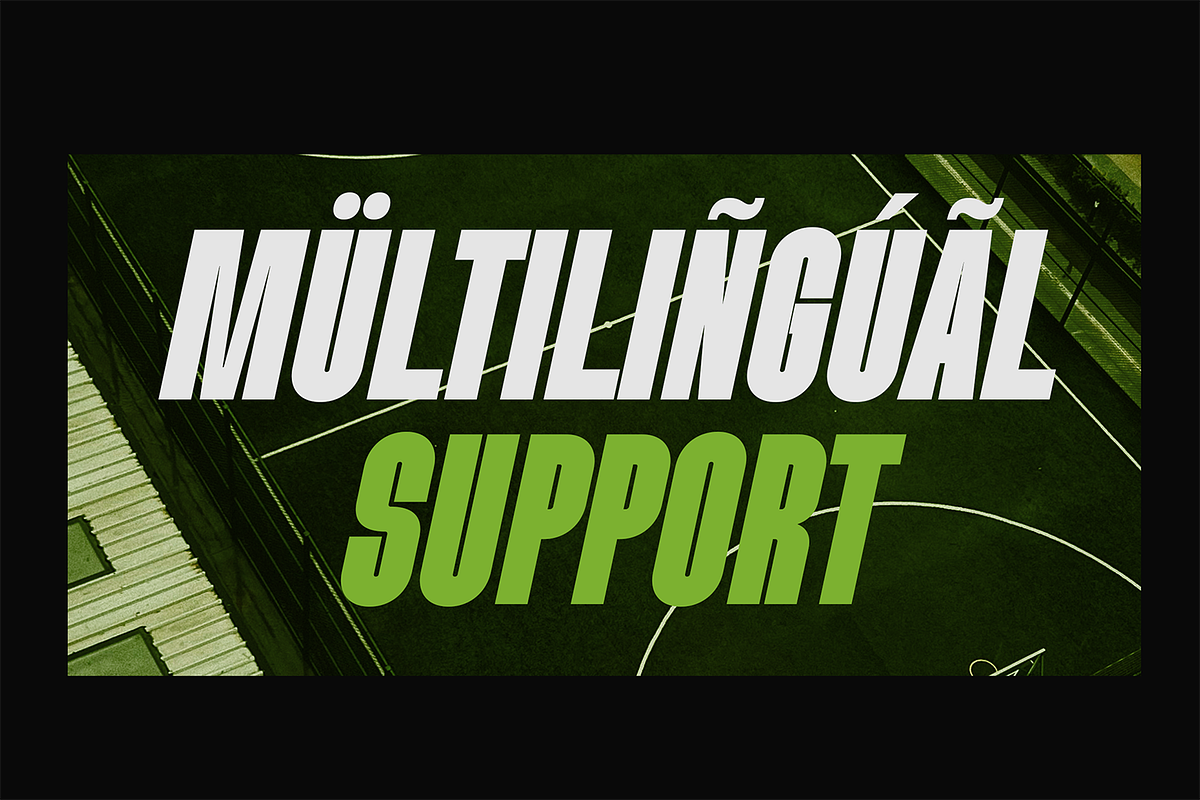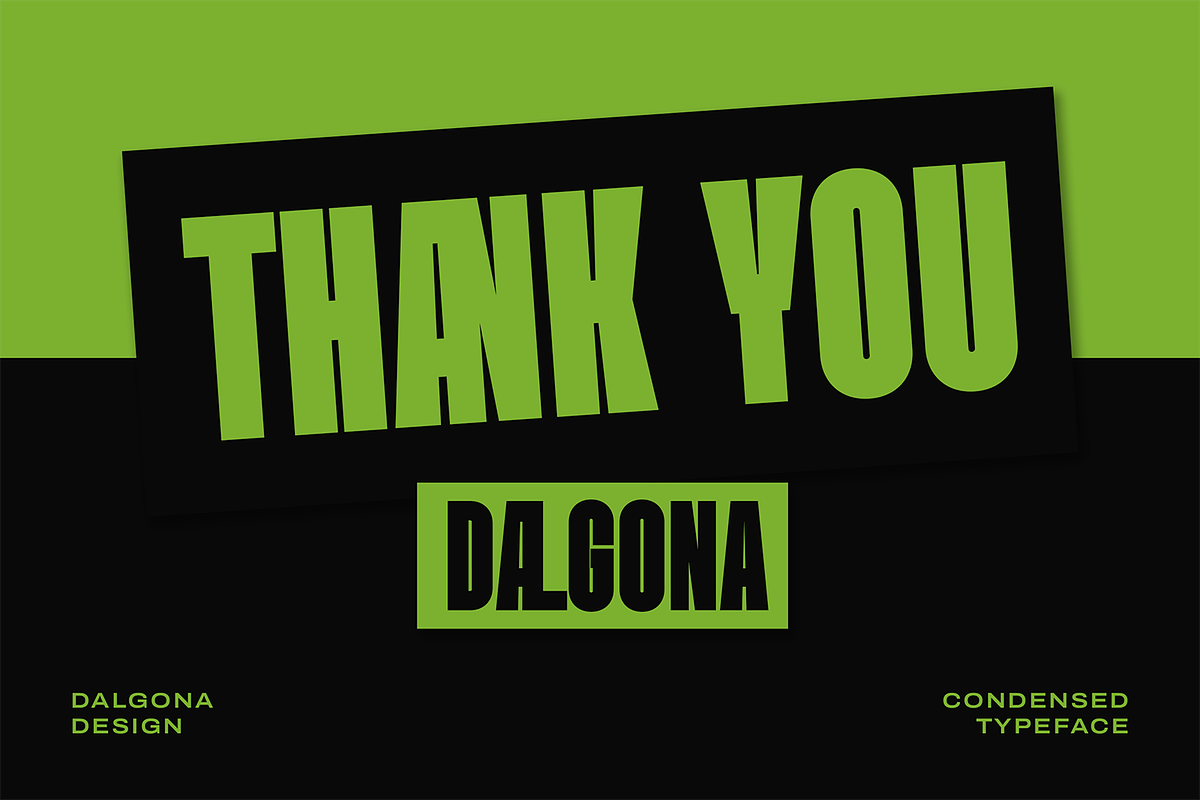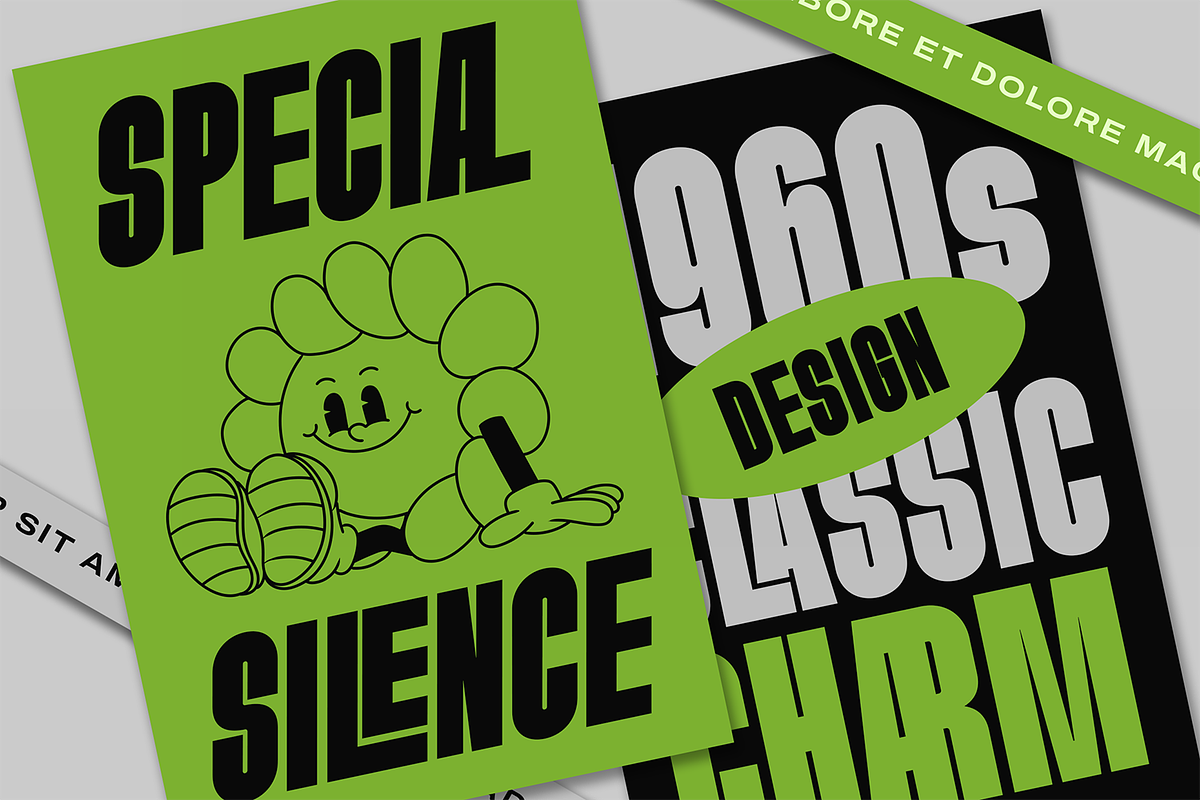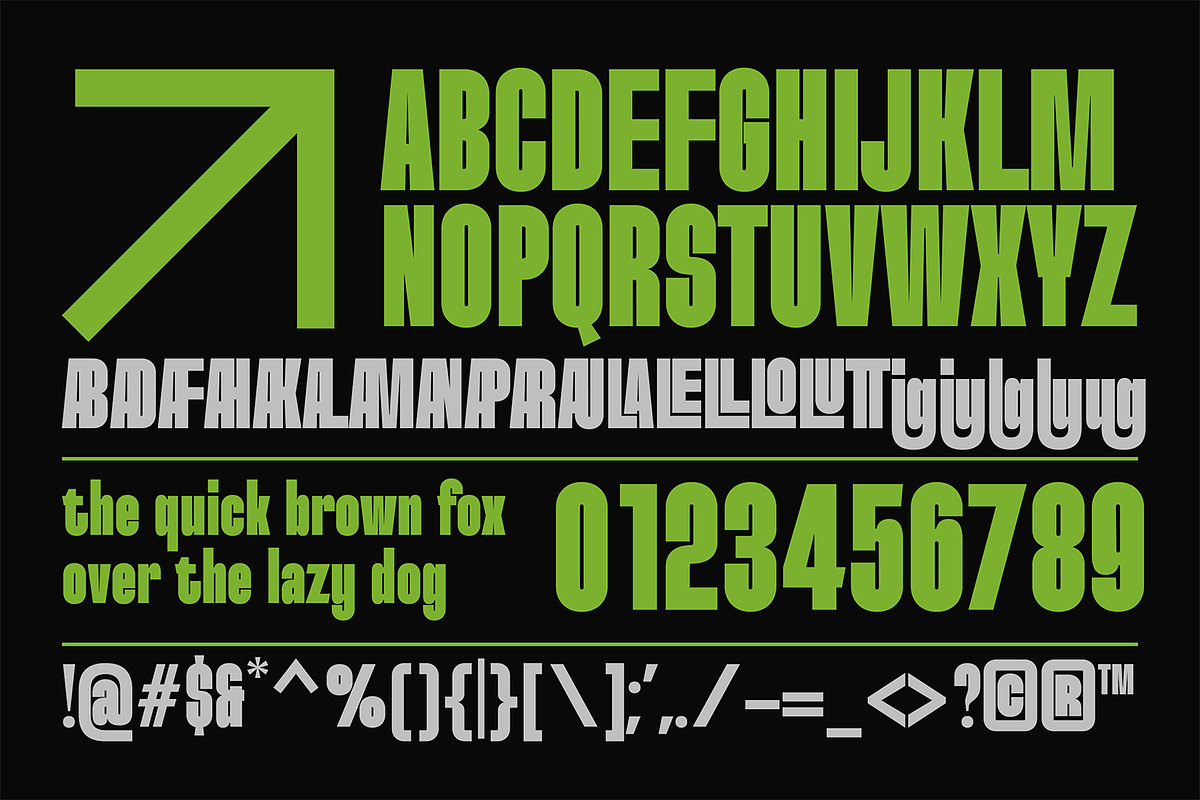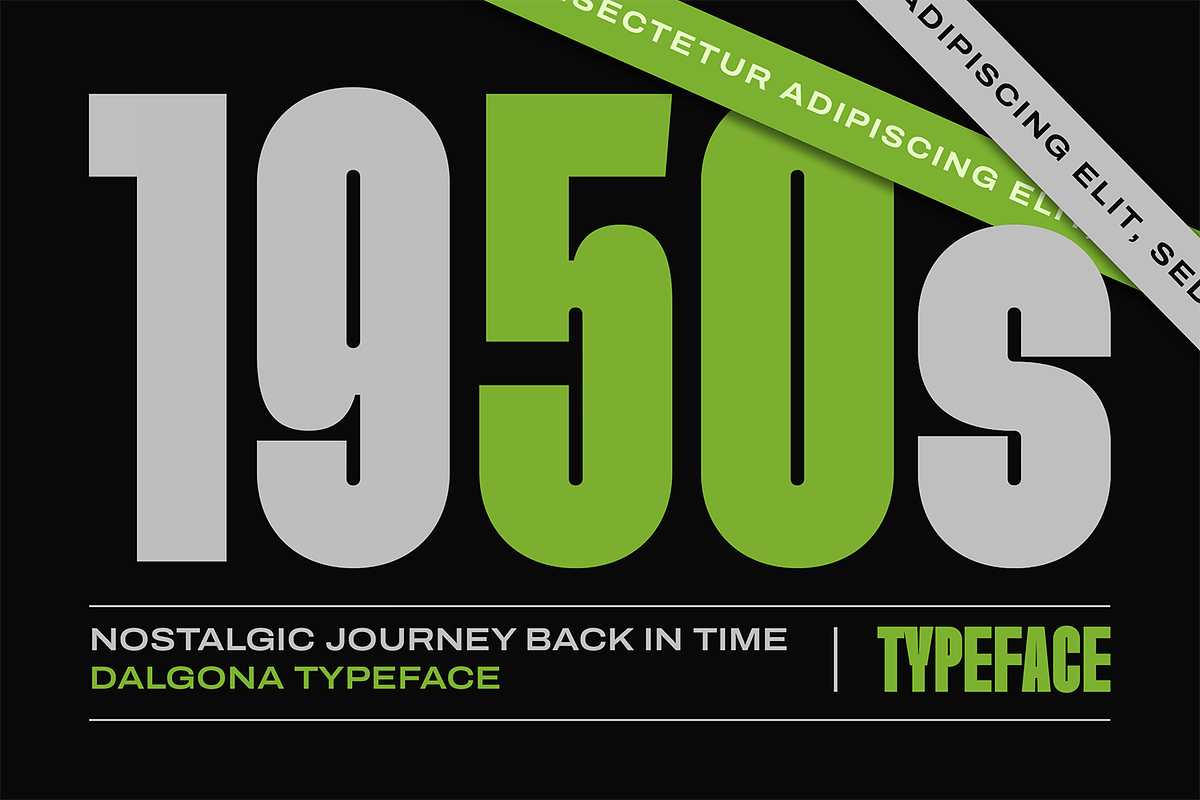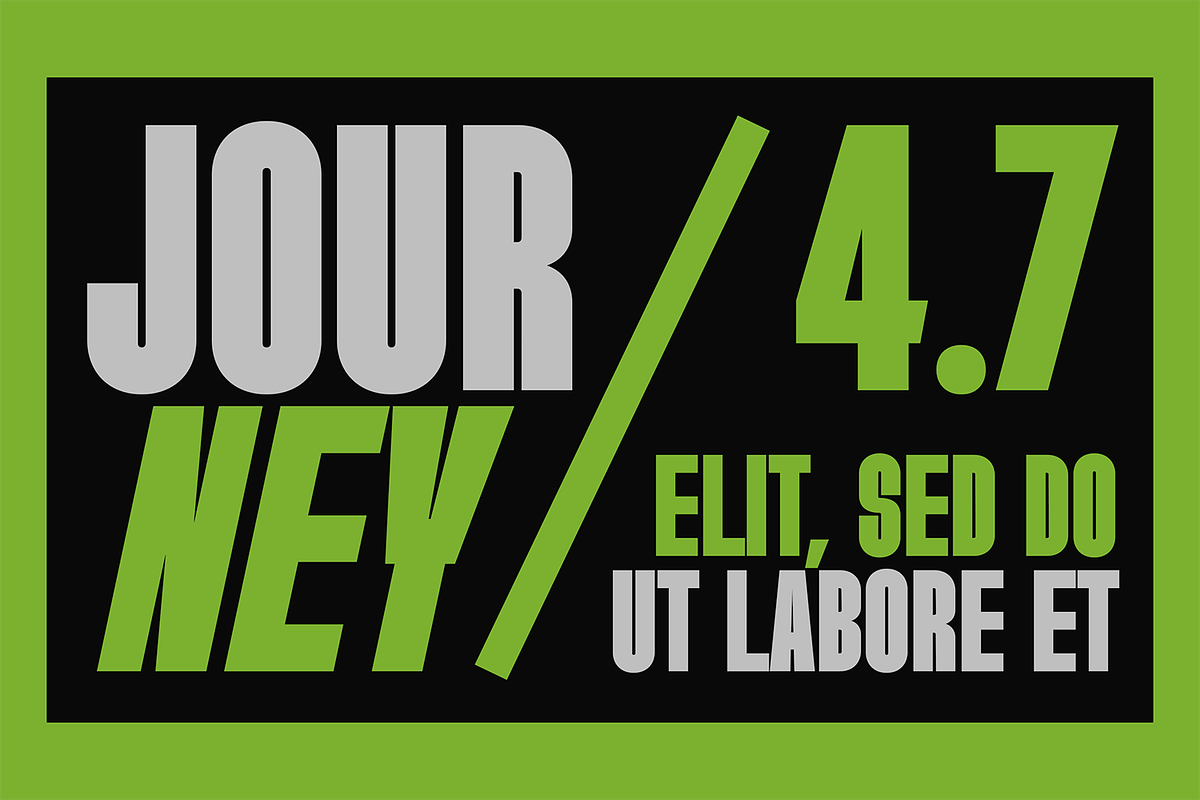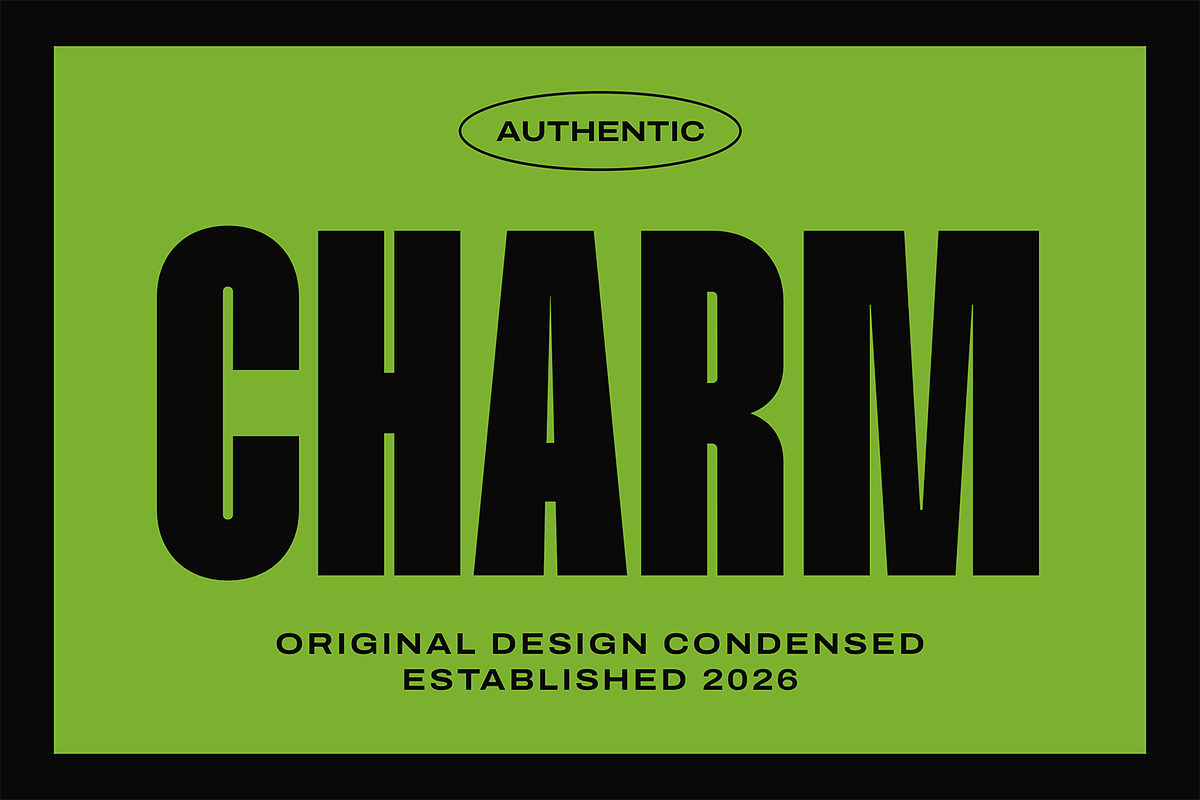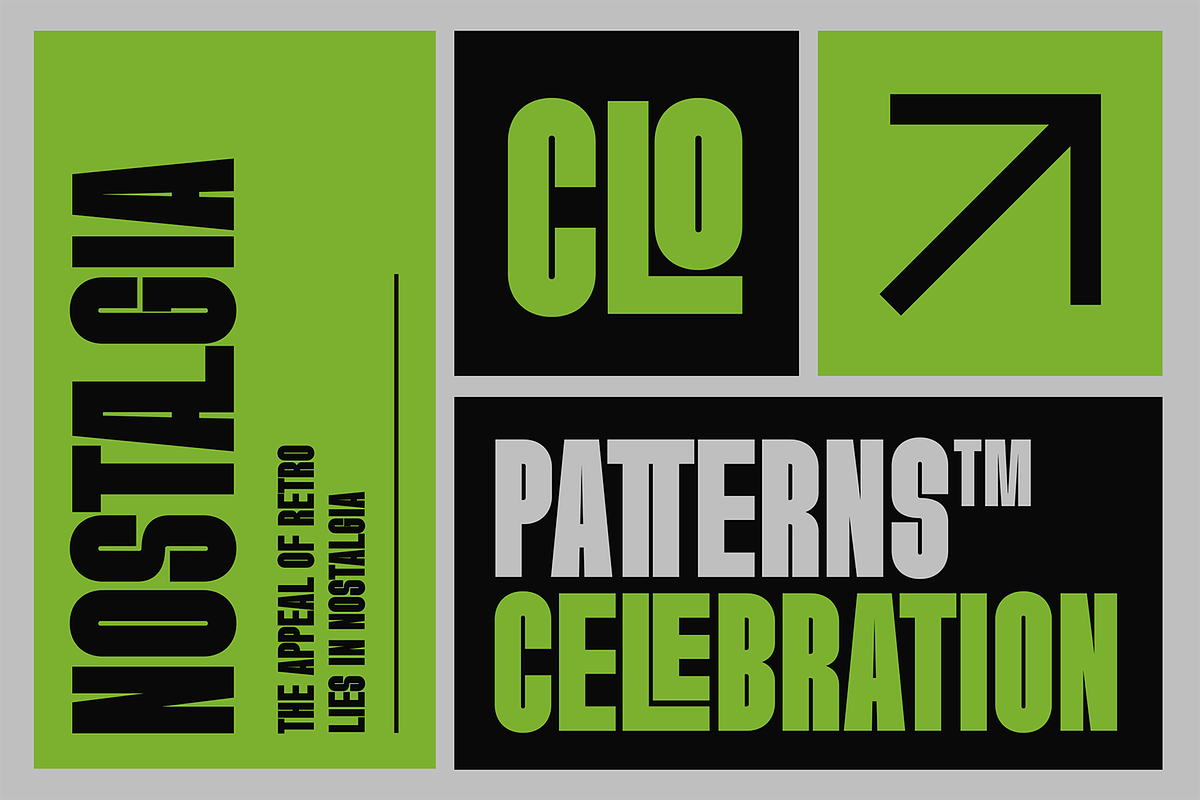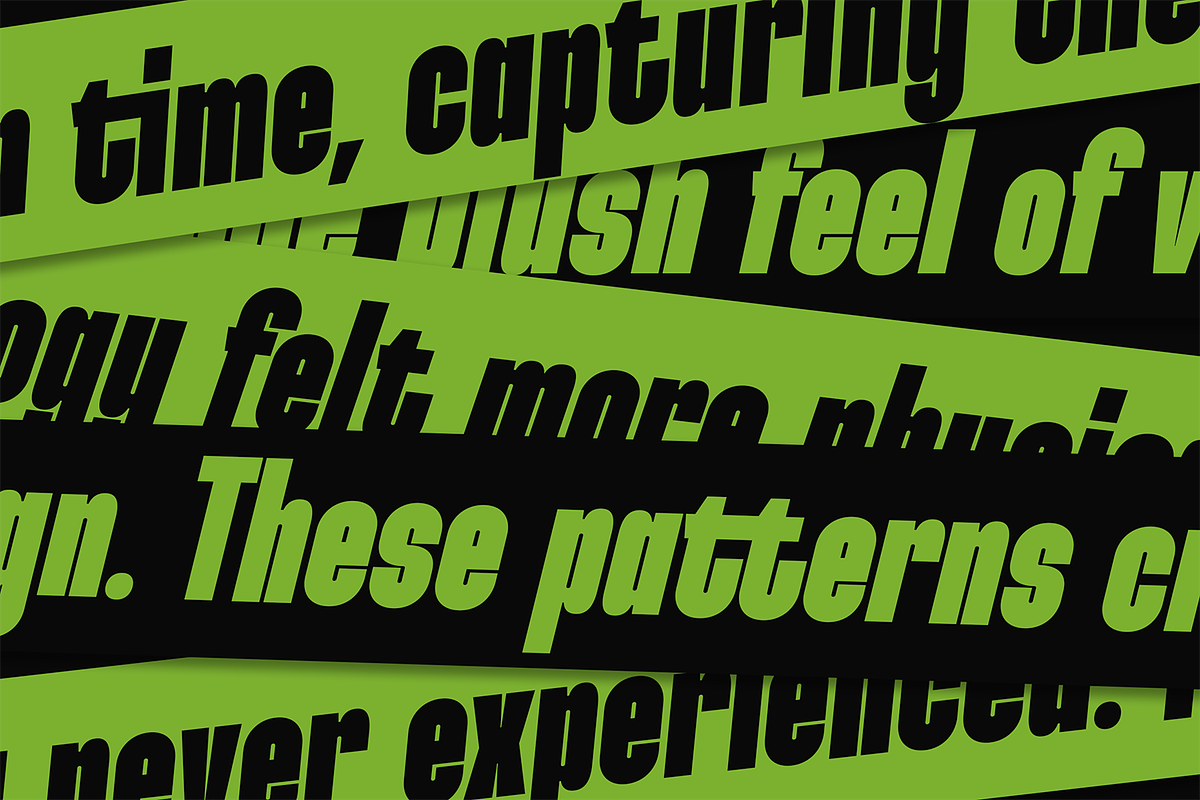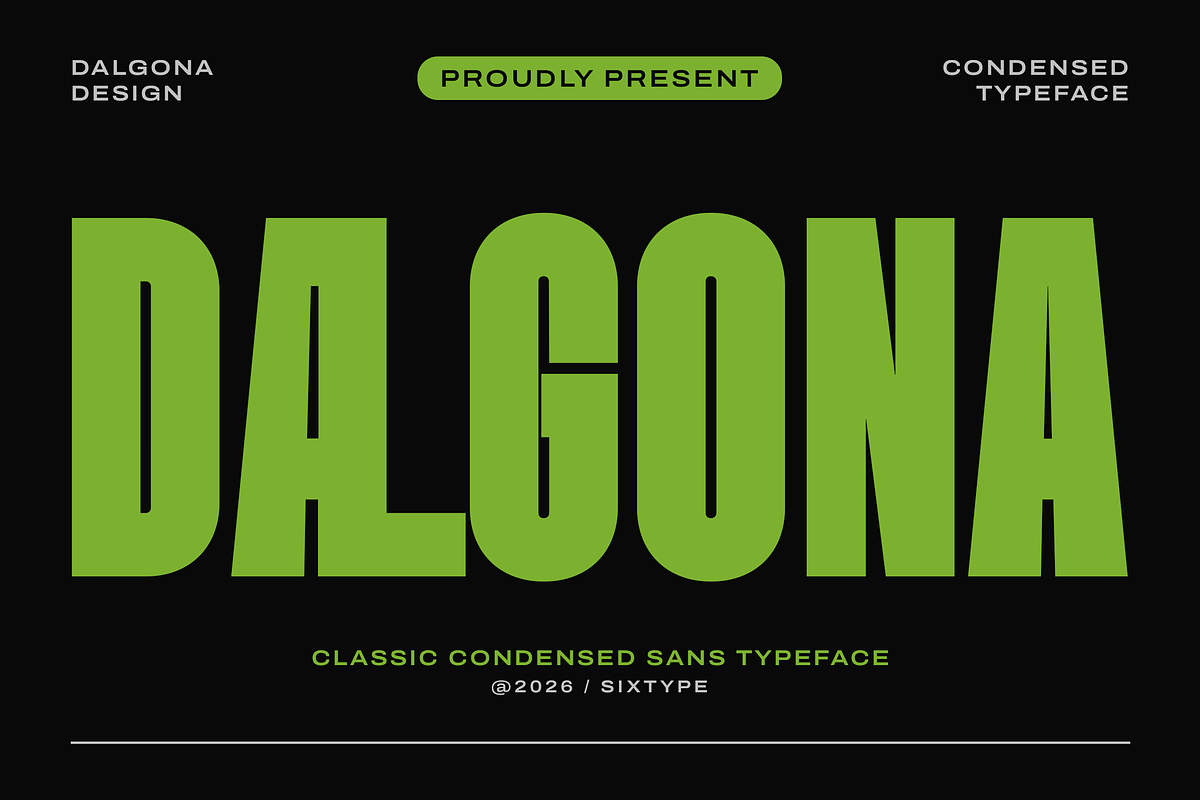
Dalgona Classic Condensed
Dalgona is a bold and classic condensed sans serif typeface designed to deliver strong visual impact with a clean and modern attitude. Featuring tall proportions, tight spacing, and solid letterforms, this font is perfect for designs that require clarity, strength, and efficiency.
Its condensed structure makes Dalgona ideal for headlines, posters, branding, editorial layouts, and advertising designs where space is limited but impact is essential. The font maintains excellent readability while offering a powerful and confident appearance.
Dalgona combines classic sans serif principles with a contemporary condensed style, making it suitable for both modern and timeless design projects.
* Headlines & titles
* Posters & advertising
* Branding & logo design
* Editorial & magazine layouts
* Packaging & product labels
* Modern and minimalist designs
- Classic condensed sans serif style
- Bold, tall, and clean letterforms
- Strong visual impact
- High readability
- Suitable for print and digital use